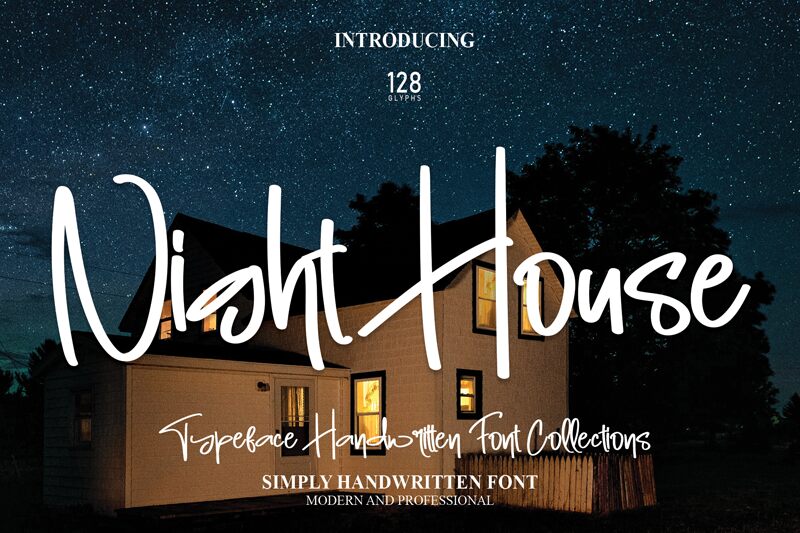
Night House
Night House, designed by Scratchones, is a whimsical handwritten font that effortlessly captures the essence of elegance and playfulness. With its semi-light weight, this font exudes a delicate charm that is perfect for projects requiring a touch of sophistication and creativity.
Whether you're designing invitations for a fairy tale-themed wedding or creating captivating social media graphics for a children's book author, Night House adds an enchanting allure to any project.
Let your imagination run wild with this versatile typeface that will bring warmth and character to your designs.